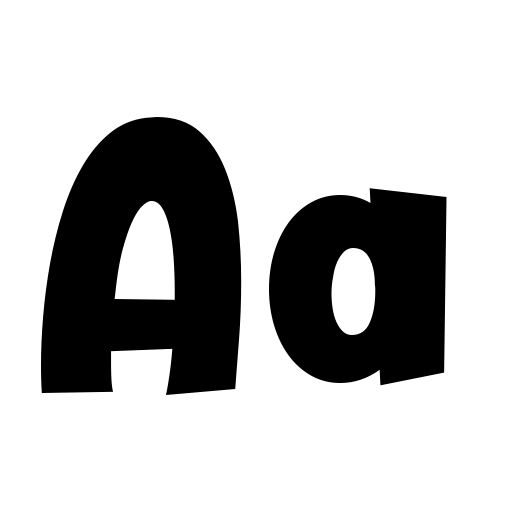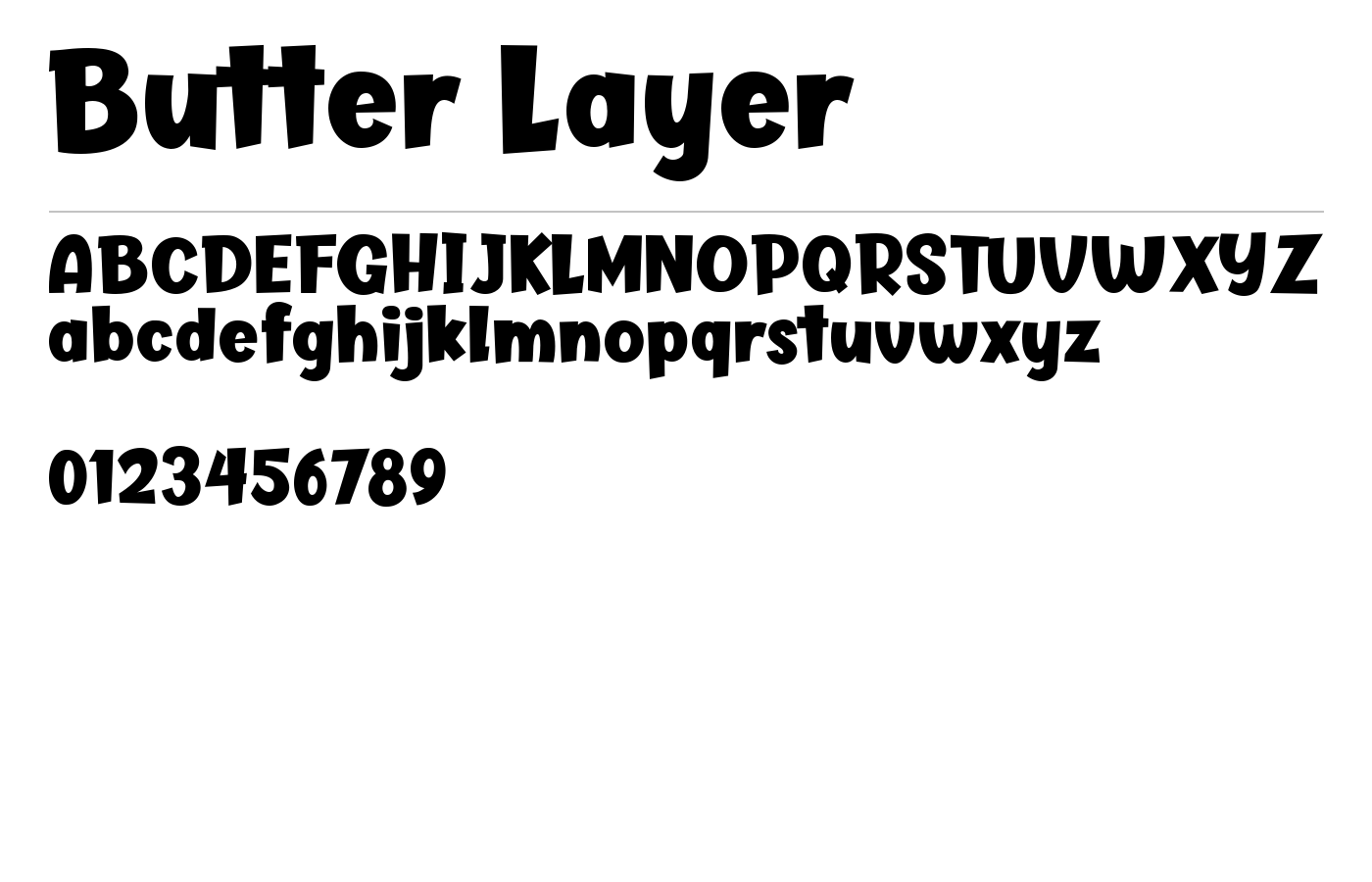
Butter Layer is a bold, playful sans serif font with a chunky, slightly uneven letterform that adds a fun, informal vibe. Its wide, rounded shapes and lively stroke variations make it ideal for eye-catching headlines, children’s books, and friendly branding that seeks to convey warmth and approachability. This font works best where a unique, cheerful personality is needed to grab attention and create a casual, welcoming atmosphere.
Butter Layer Font
About Butter Layer Font
| Font family | Butter Layer Font |
| Designer | Lettersiro 2018 |